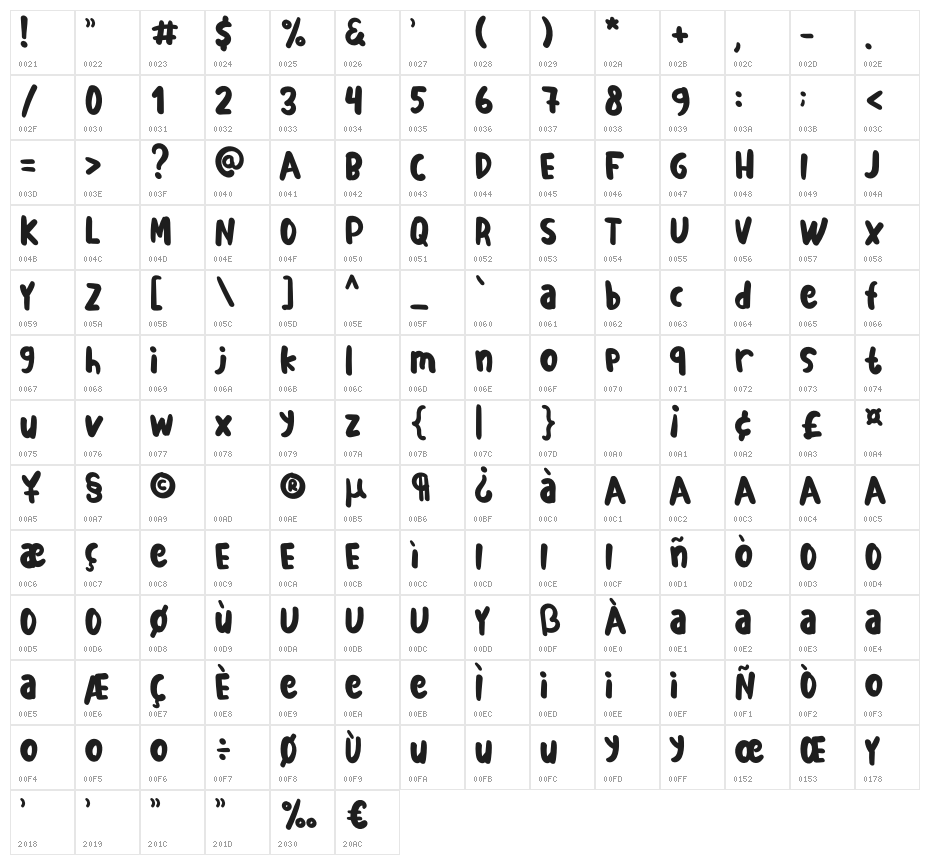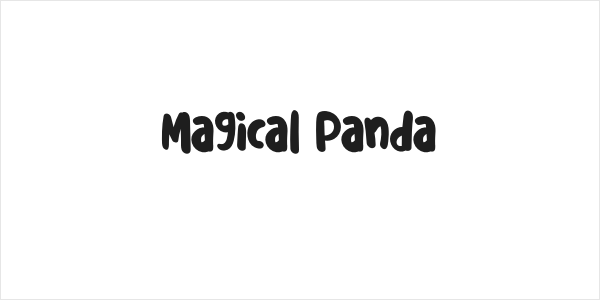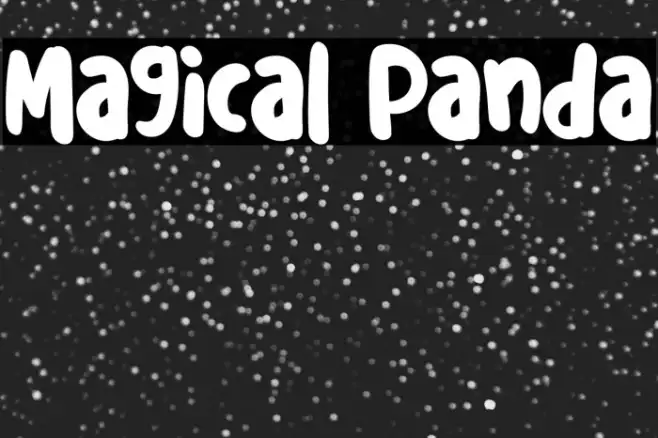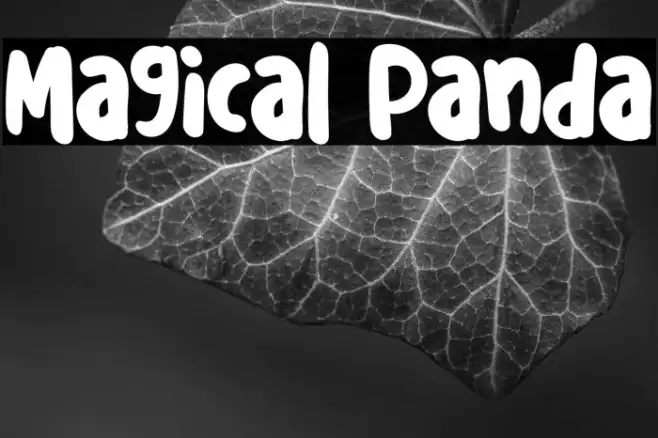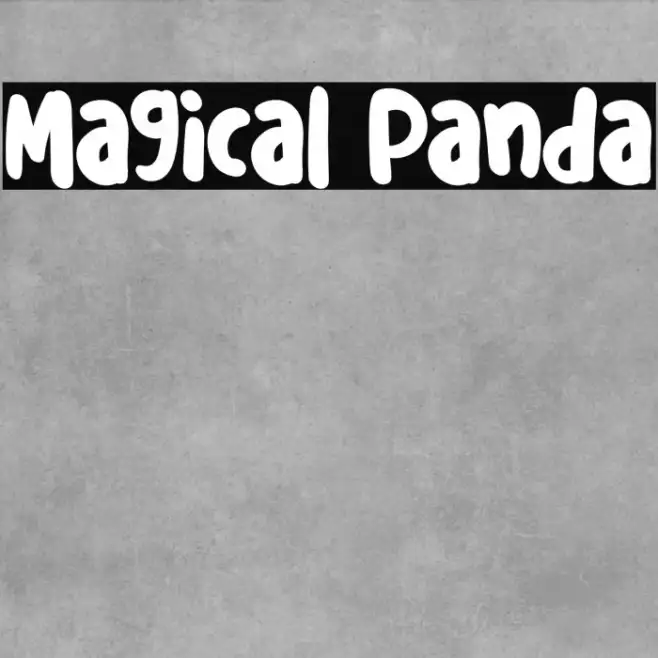
Magical Panda Font
Magical Panda Description
This playful and bold font features a hand-drawn style with rounded edges and a slightly irregular baseline, giving it a whimsical and friendly appearance. The characters are thick and substantial, making them highly legible and impactful. The uppercase and lowercase letters maintain a consistent style, with the lowercase letters being slightly smaller but equally bold. Numbers and special characters follow the same design principles, ensuring a cohesive look across all text elements. The overall style is informal and approachable, making it suitable for creative and fun projects.
| Proposed Projects | Ideal for children's books, playful branding, greeting cards, and casual invitations. |